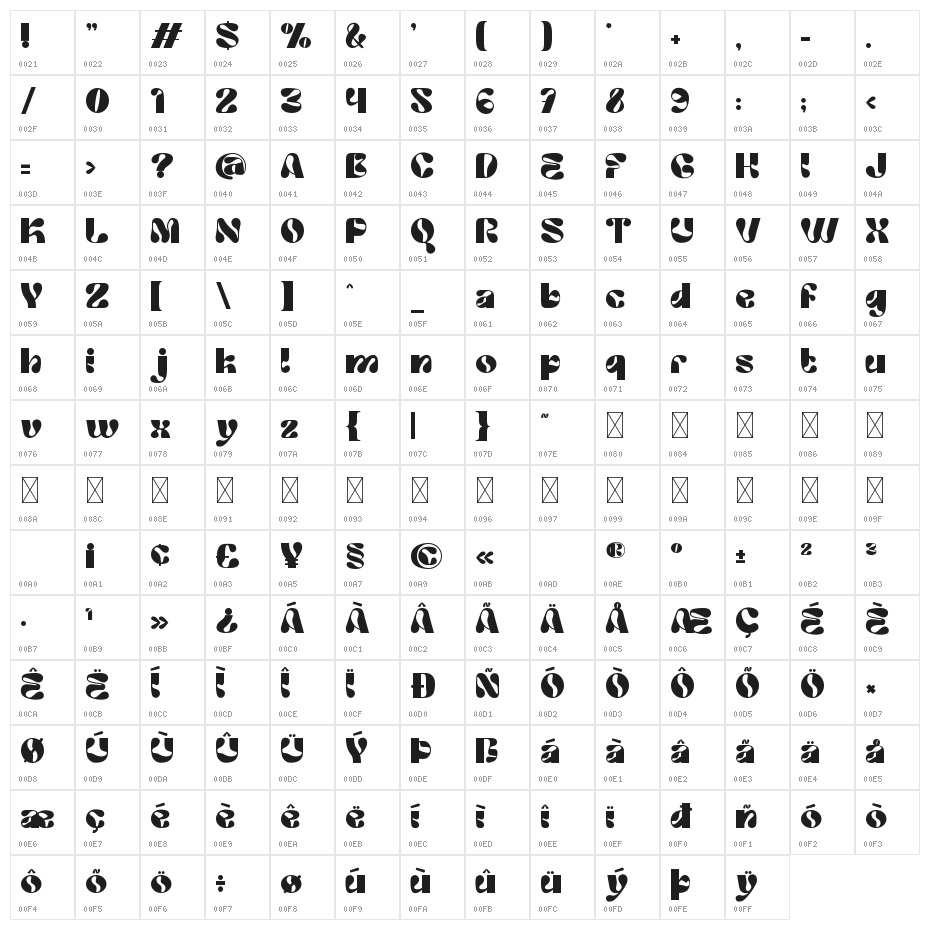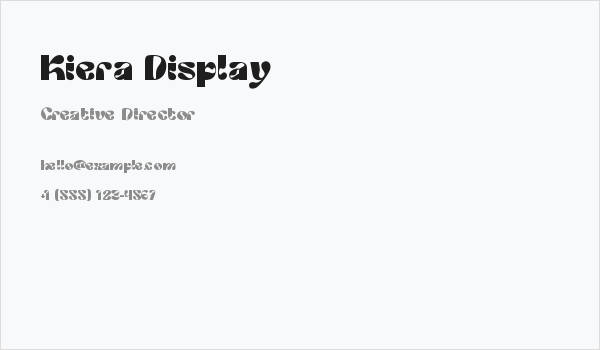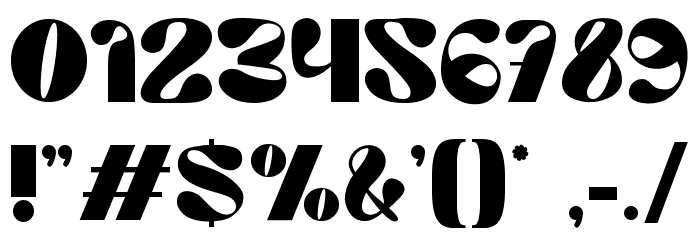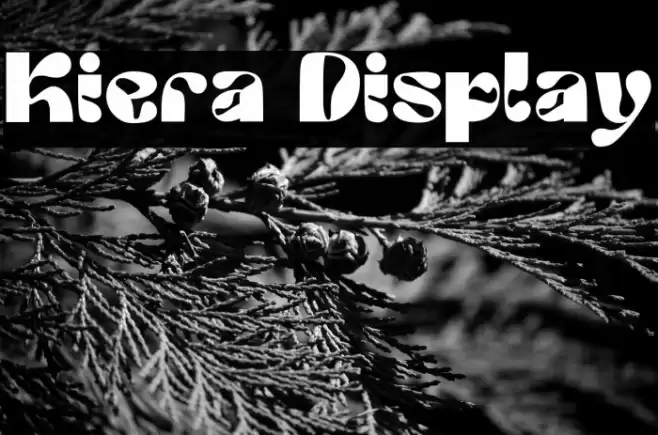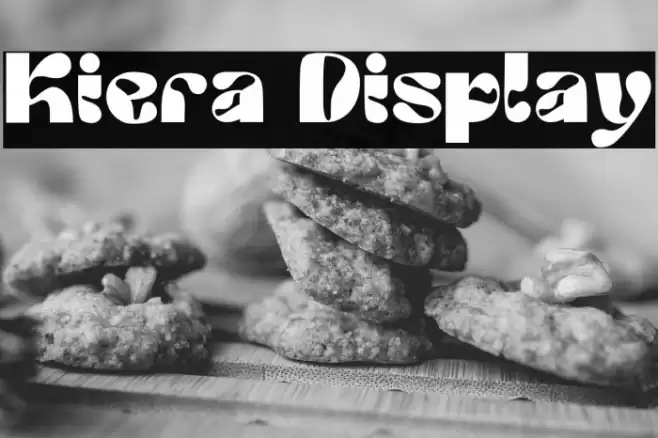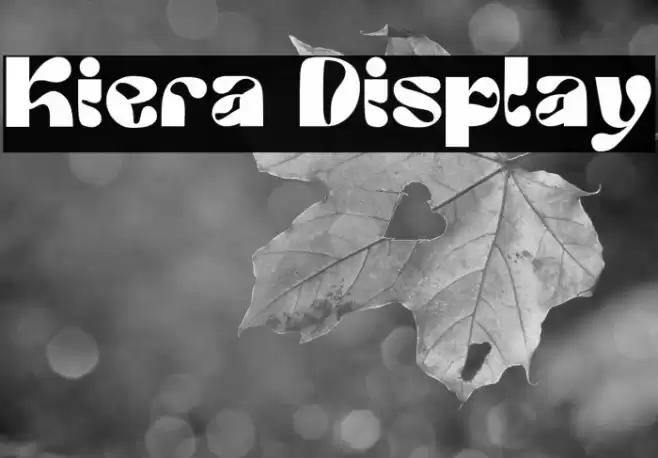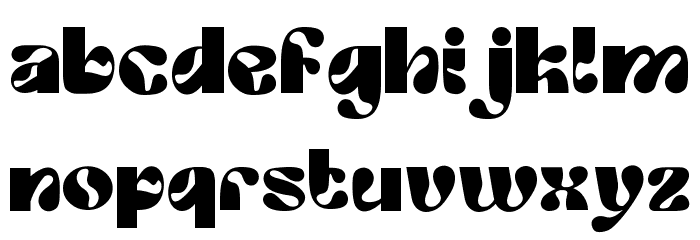
Kiera Display Font
Kiera Display Description
This font features a bold and striking design with a unique, artistic flair. The characters are crafted with a high contrast between thick and thin strokes, creating a dynamic and eye-catching appearance. The rounded edges and playful cutouts within the letters add a whimsical and modern touch, making it stand out in any design. The uppercase and lowercase letters maintain a consistent style, while the numbers and special characters complement the overall aesthetic. This font is perfect for making a statement and drawing attention.
| Use Case | Headlines, Logos |
| Proposed Projects | Ideal for branding, posters, album covers, and any project requiring a bold, artistic statement. |